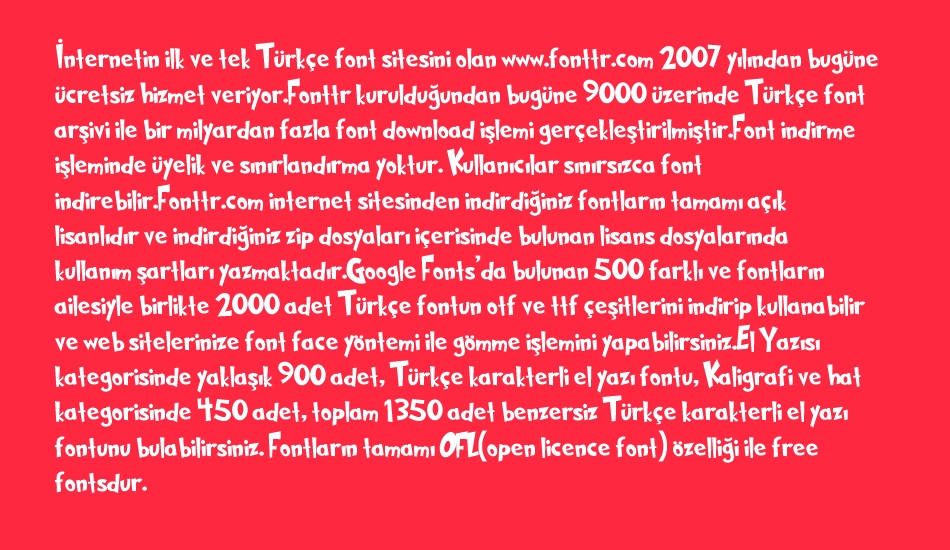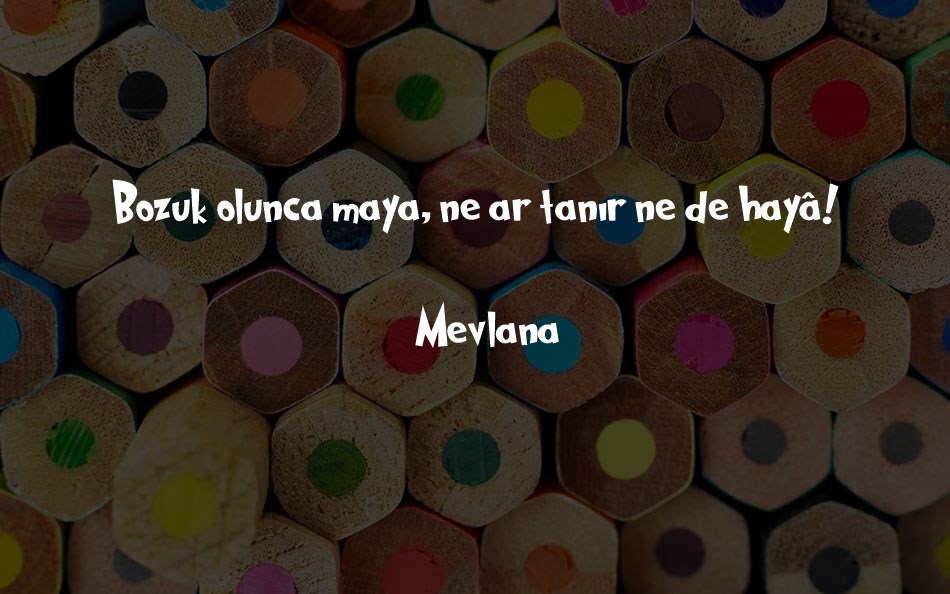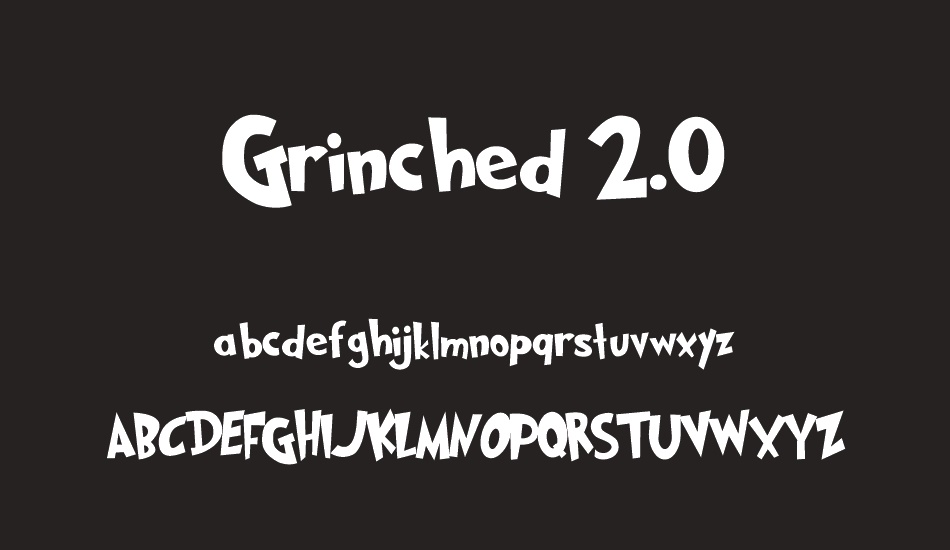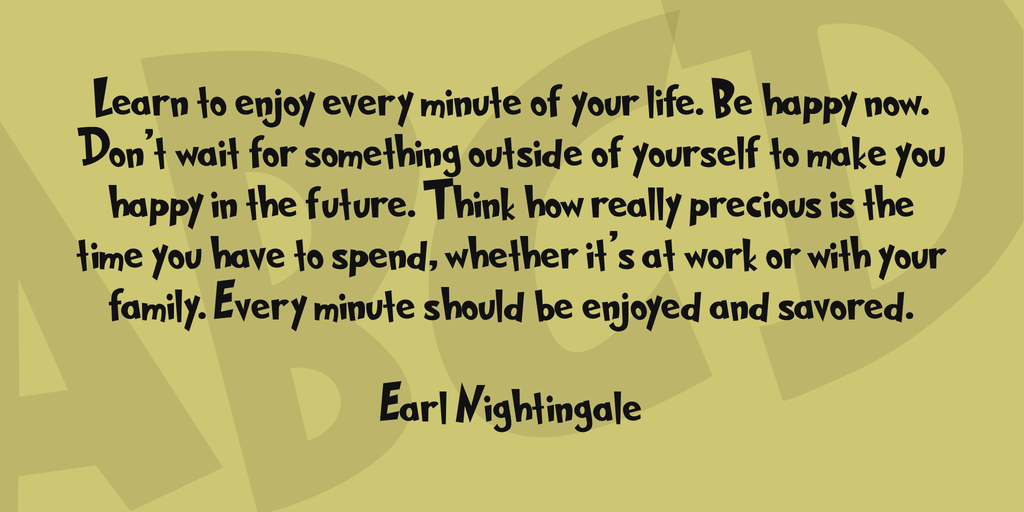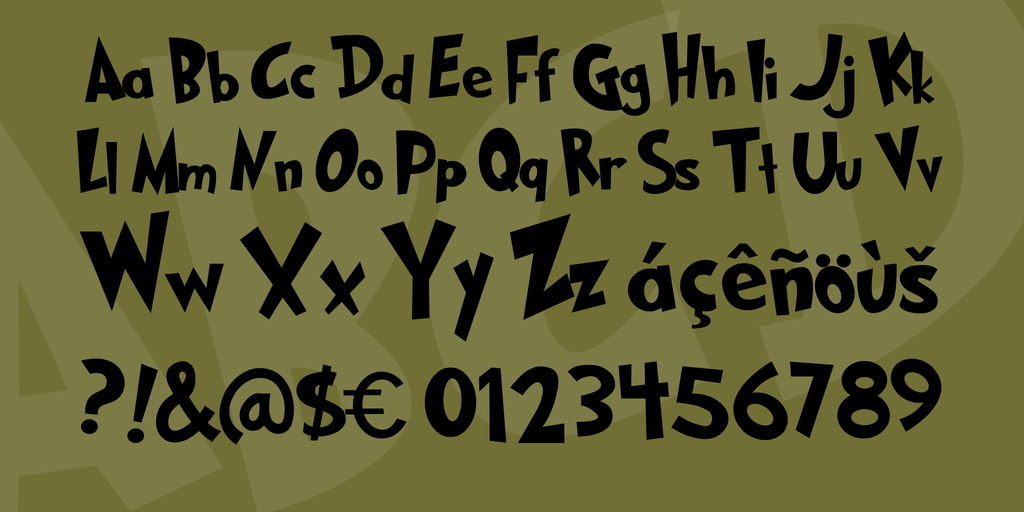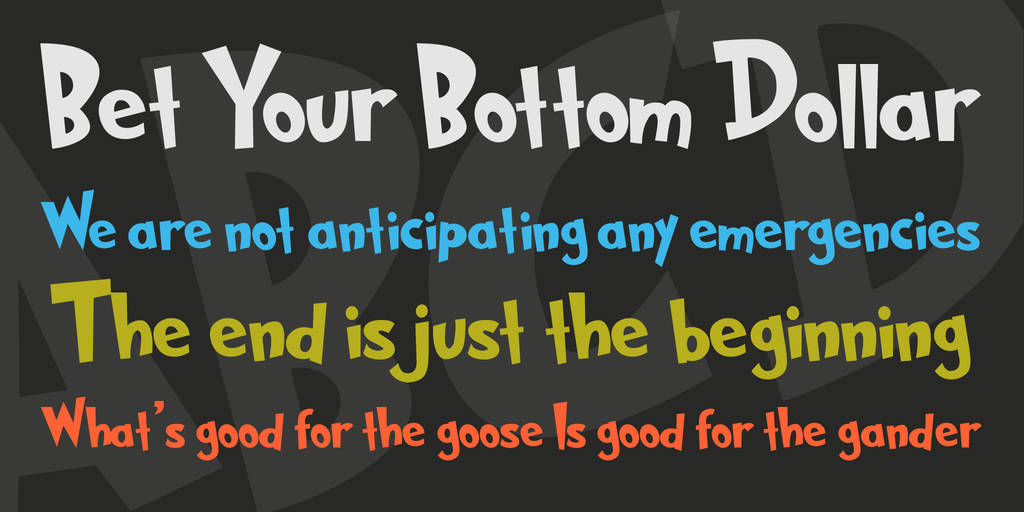
Grinched 2.0 Font font
Grinched 2.0 font
Grinched 2.0 Font font
TrueTypeFont: Grinched 2.0
Sharkshock Productions
completely redo the font keeping several of the original characters intact. 80% of the uppercase letters have made their way back into the new version while 95% of the lowercase letters were
replaced and redrawn completely. Each glyph was carefully re-edited for maximum sharpness and magnification at large sizes. This is the first of my fonts that covers many new languages
previously not found in any of the others. Cyrillic characters were added for Russian and Ukranian users. Glyphs have been added for Portugeuse, Spanish, Serbian, Czech, and several other
Central and East European countries. There are 676 glyphs in all! Full punctuation and kerning (strategic spacing between letters) was added to standard latin used in English. Letters are
intentionally closer together than the previous version.